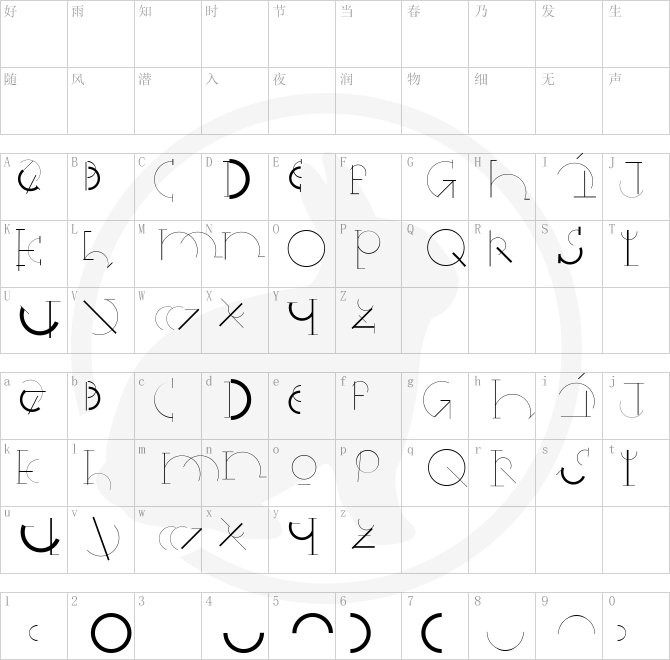
- Font Name:HalfCircleAlphabetXP
HalfCircleAlphabetXP.ttf is a very beautiful artistic font, HalfCircleAlphabetXP.ttf is widely used in the design and printing of various books and pictures,HalfCircleAlphabetXP.ttf has a strong visual impact,HalfCircleAlphabetXP.ttf is a commonly used font in newspapers, magazines and books, and is used in posters, e-commerce Poster design, store design, logo design, font design and other fields.HalfCircleAlphabetXP.